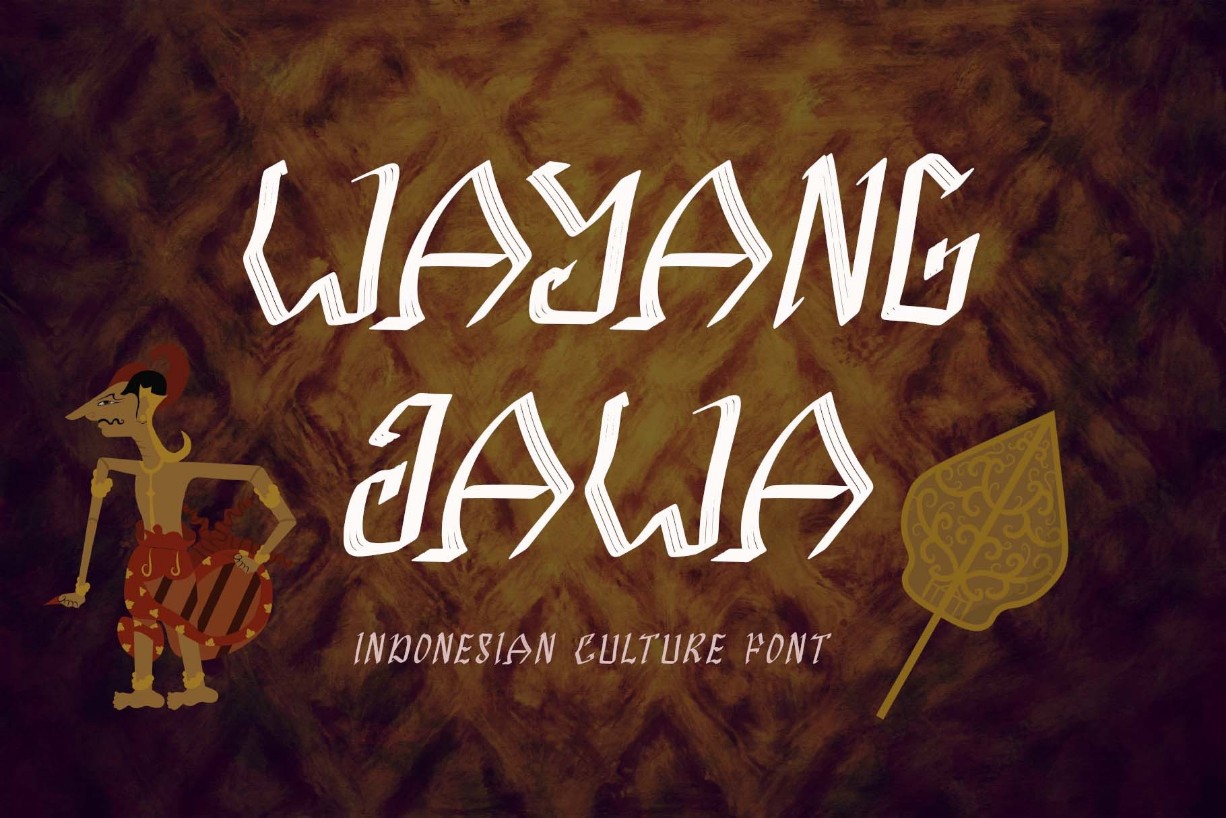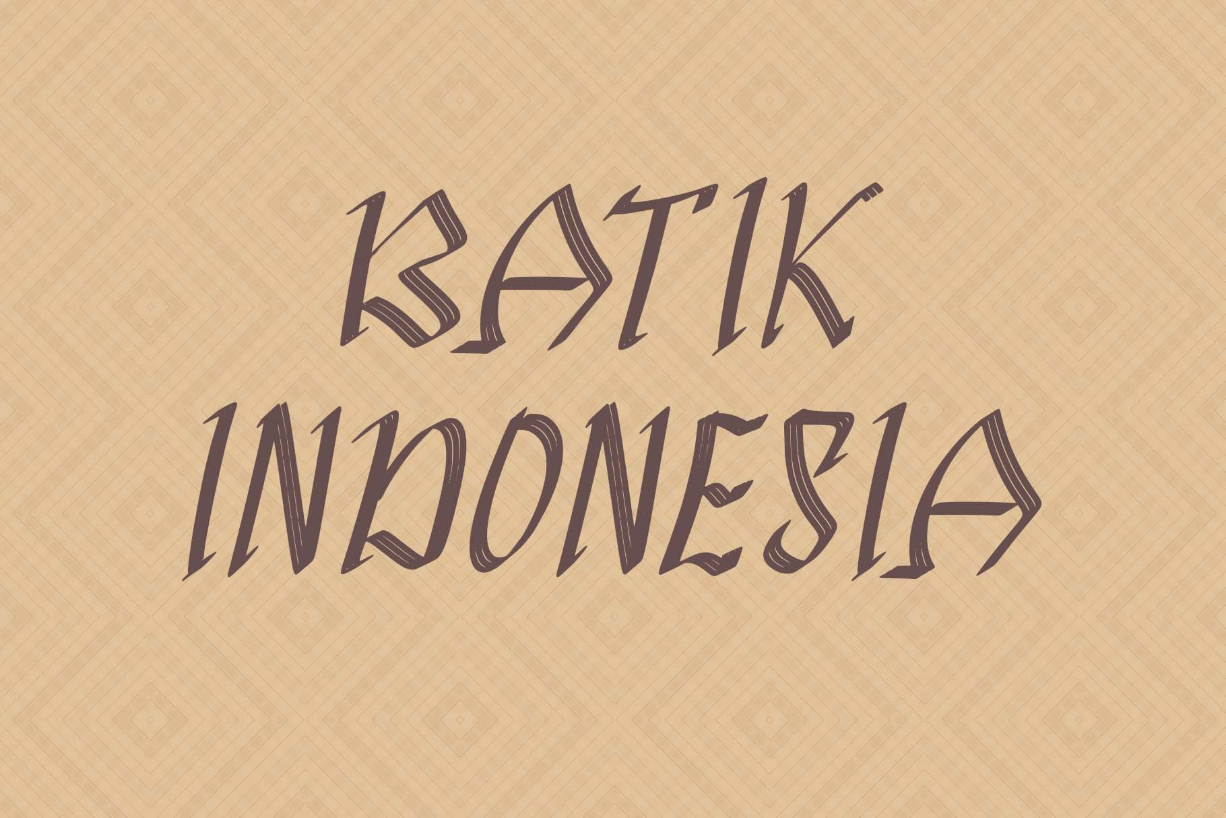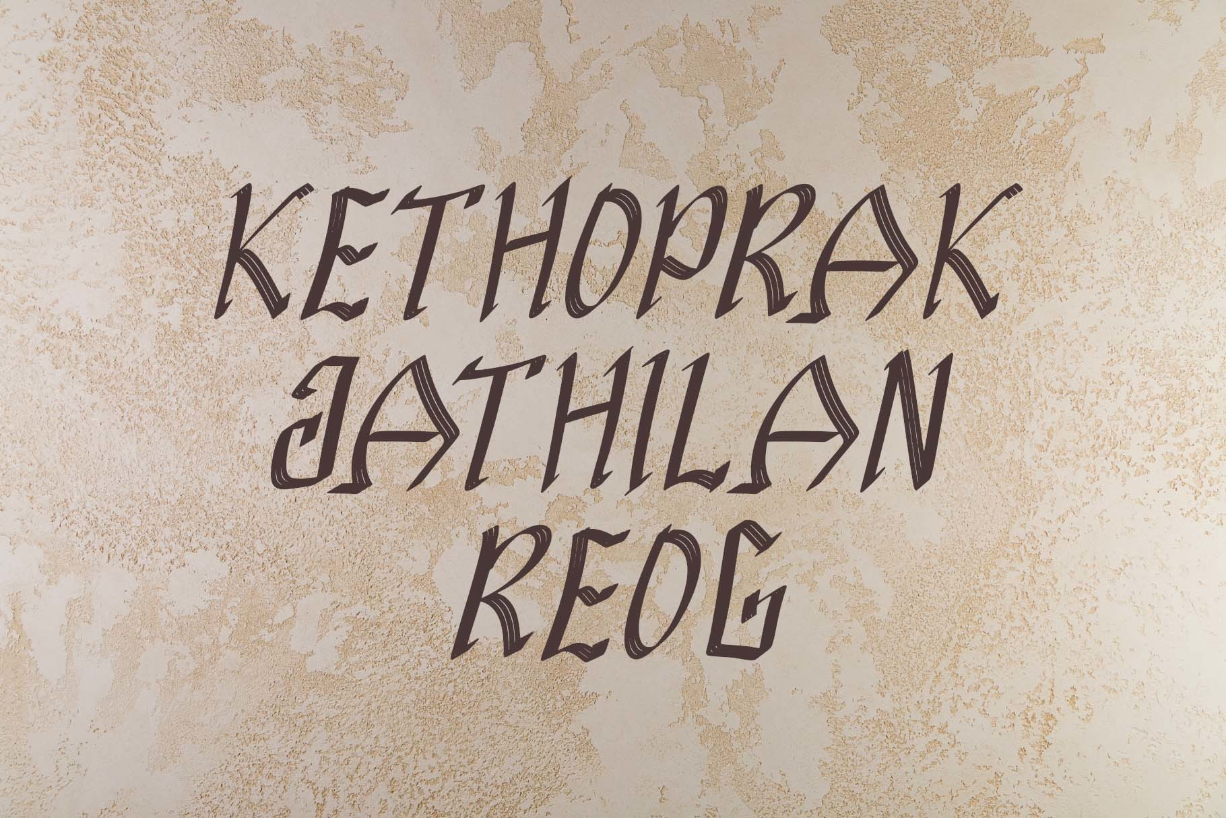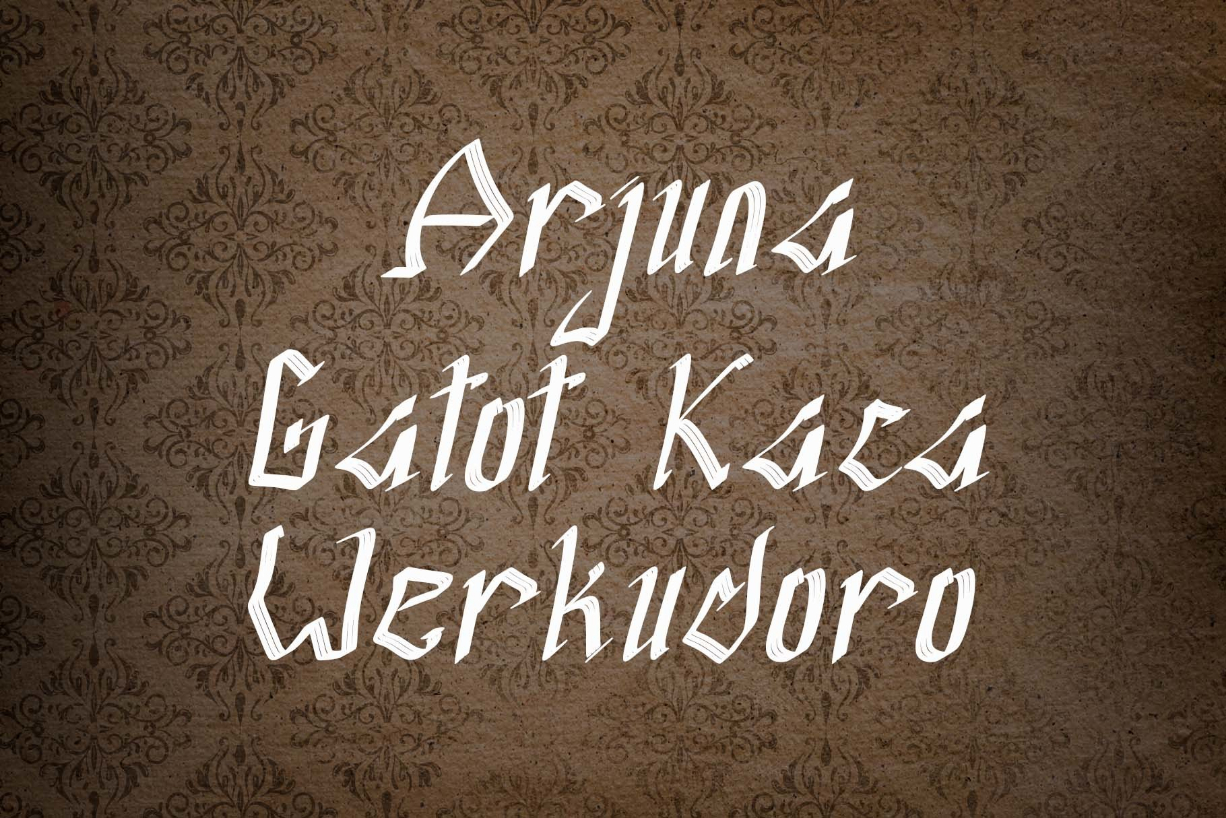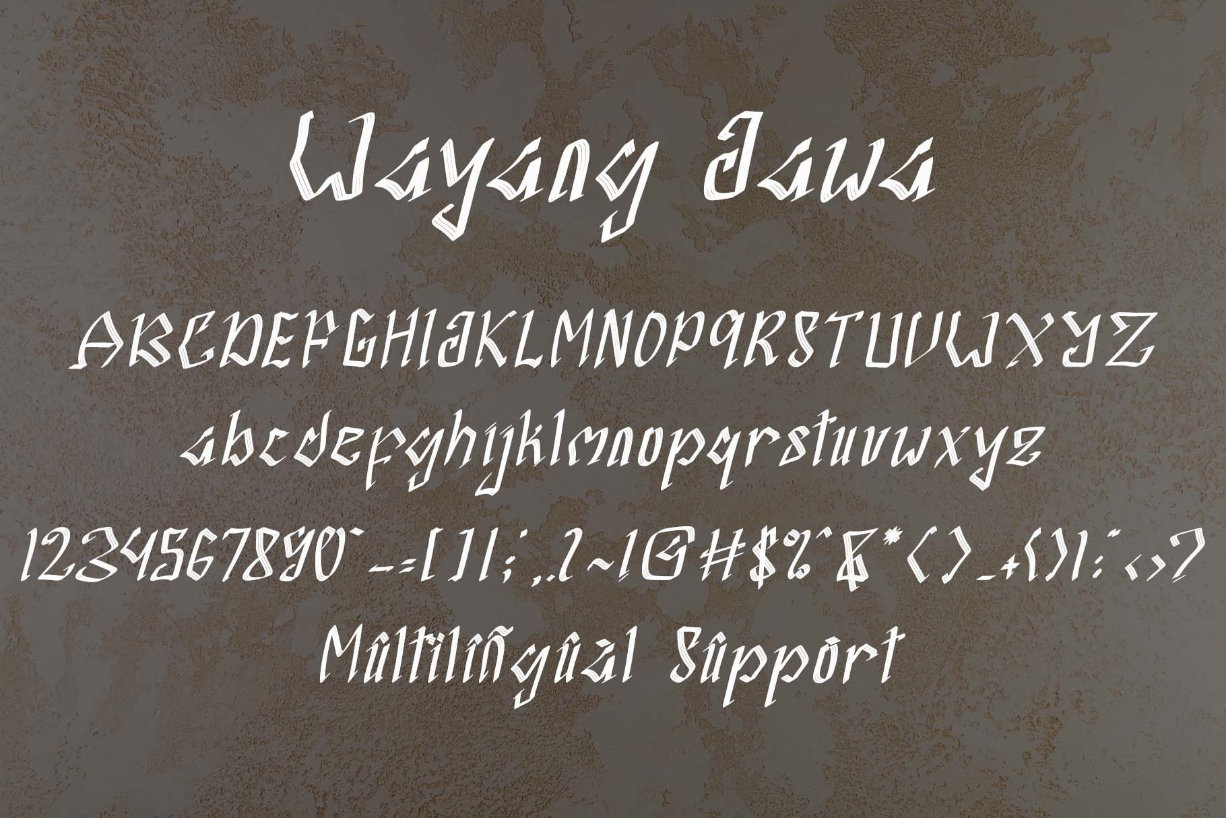
Wayang Jawa Font
About Wayang Jawa Font
“Wayang Jawa” is a blackletter font with the theme of Indonesian culture. This font is equipped with uppercase, lowercase, numerals, punctuation, and multilingual support. It is suitable for the promotion of Indonesian culture, logos, Javanese script, wayang performances, reog, jathilan, and other cultures.